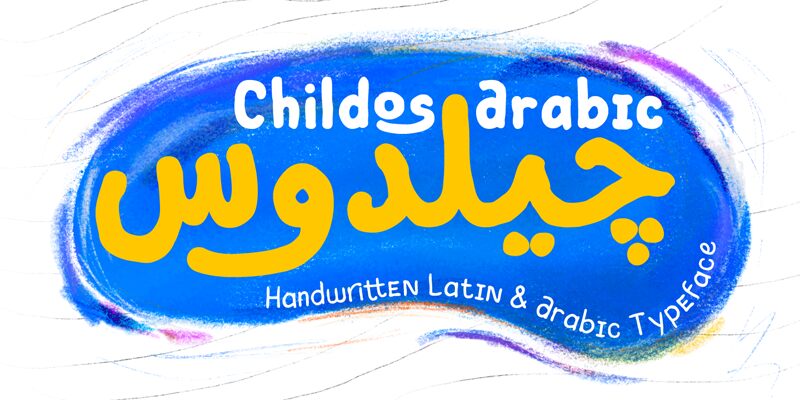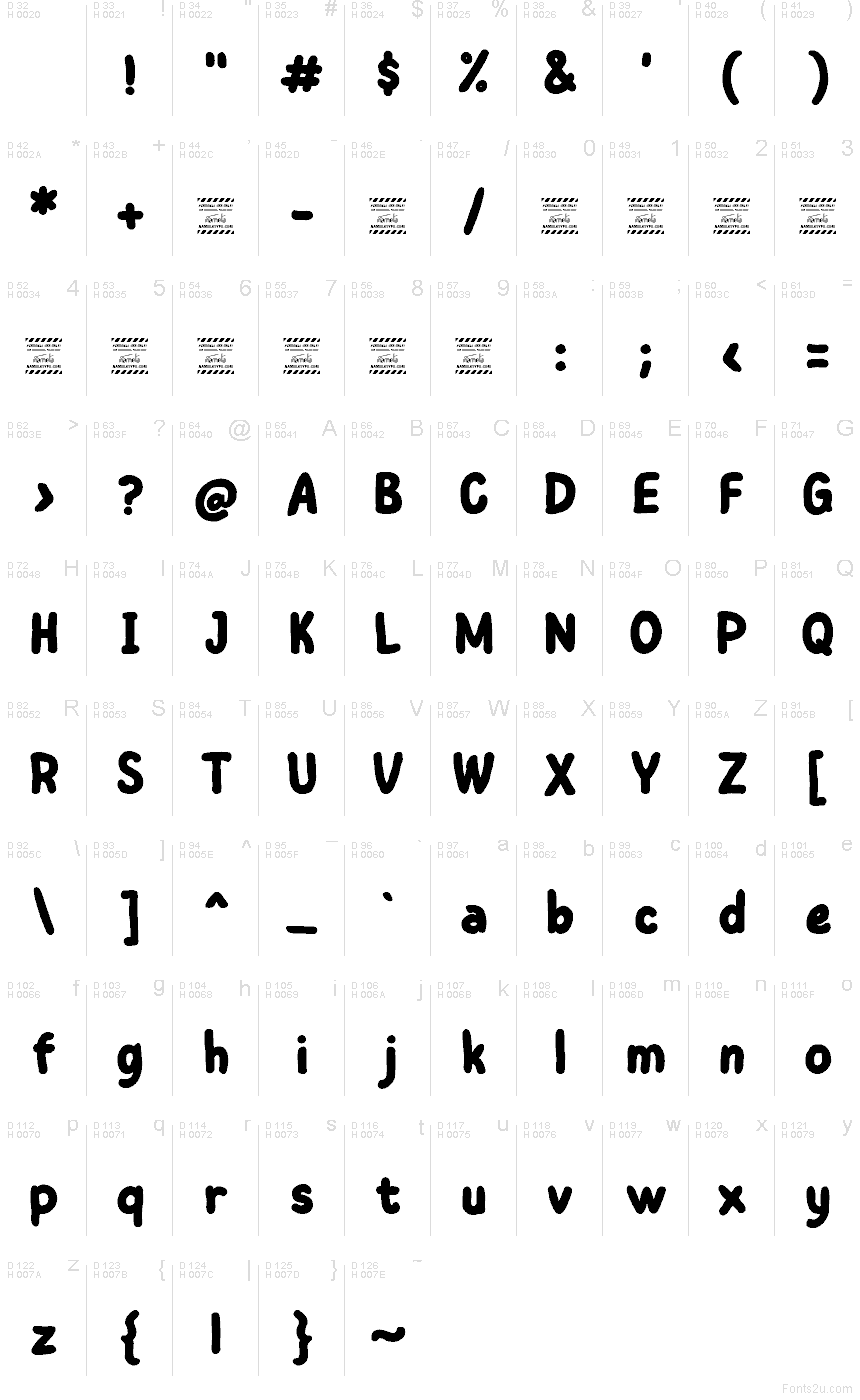
Childos Bold font by Namela Type is a free handwritten typeface with a chubby, marker-like feel that looks straight out of a kid’s sketchbook. The letters are rounded, slightly wobbly, and pleasantly dense, giving each word a friendly, bouncy weight on the page. It reads clearly while still feeling spontaneous, like a confident doodle traced over a few times with a thick, inky pen.
Using Childos Bold, this free font shines on children’s book covers, classroom posters, birthday invitations, toy packaging, logos for kid-focused brands, and playful social media graphics. The chunky forms hold up well at larger sizes, where their soft edges and irregular rhythm really come alive. Pair it with a clean, light sans serif for body text to keep the layout readable while Childos Bold does the fun, attention-grabbing work in headings and titles.